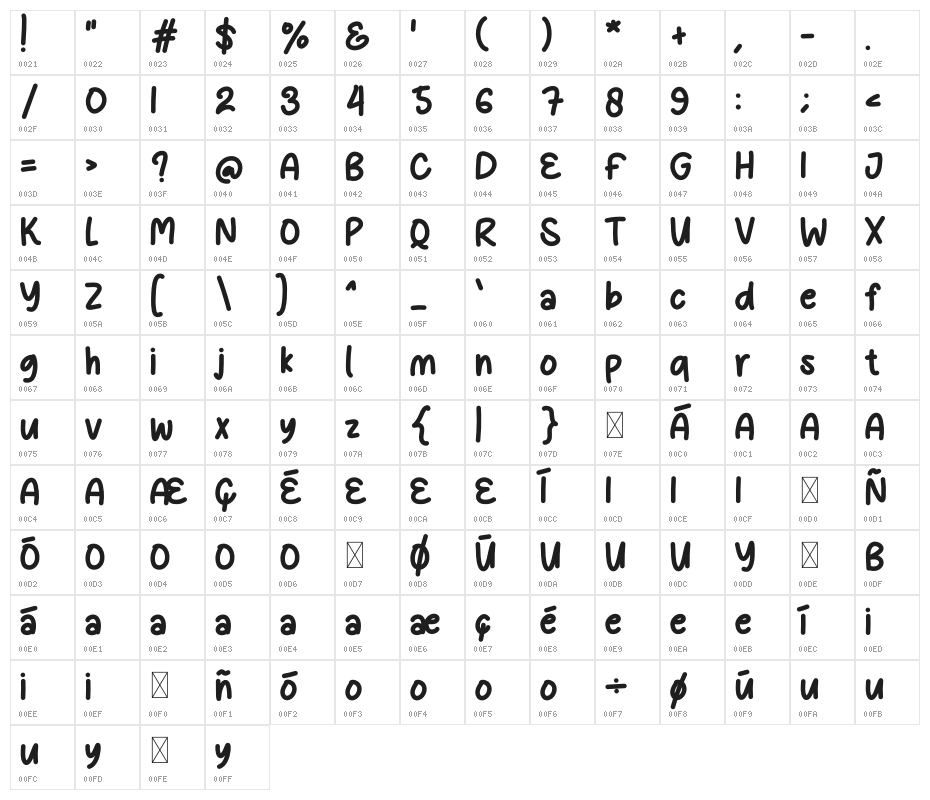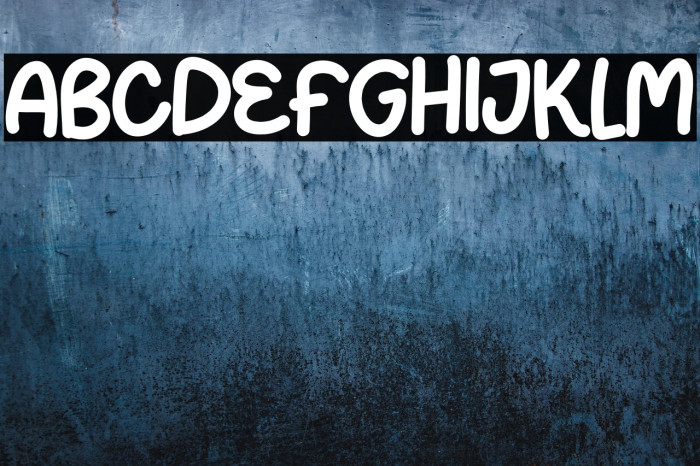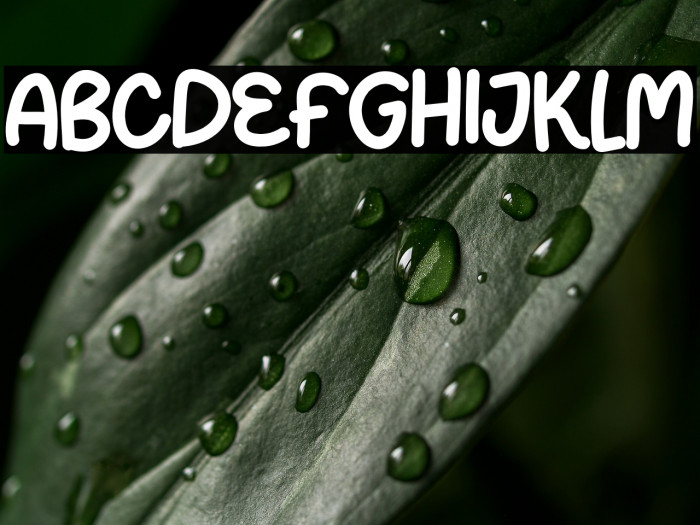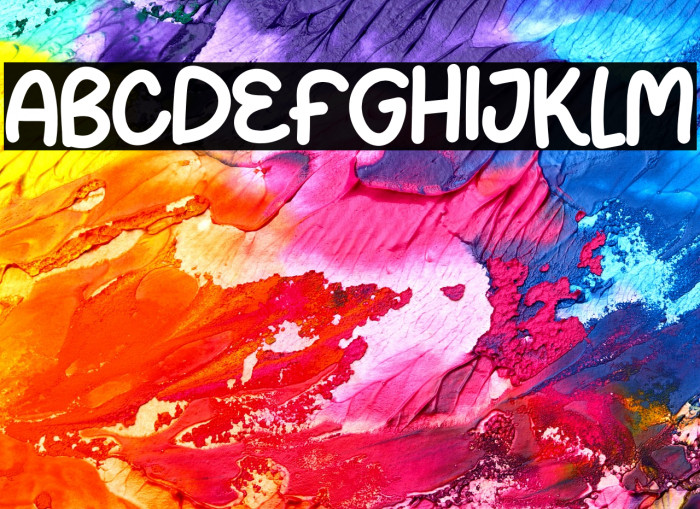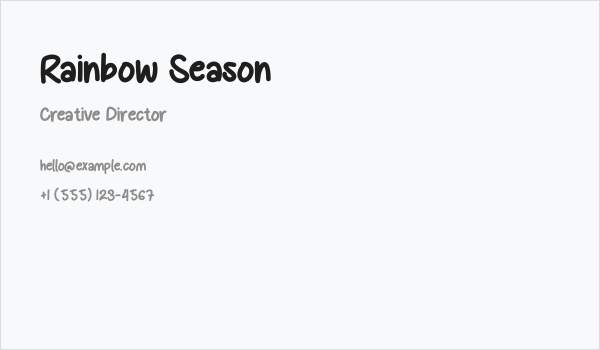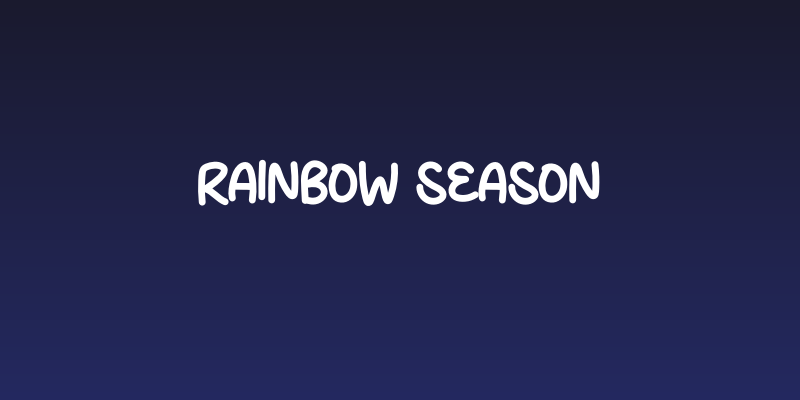
Rainbow Season Font
Rainbow Season Description
A playful, rounded handwritten font with a casual and friendly appearance.
| Proposed Projects | Children's books, casual invitations, playful branding. |